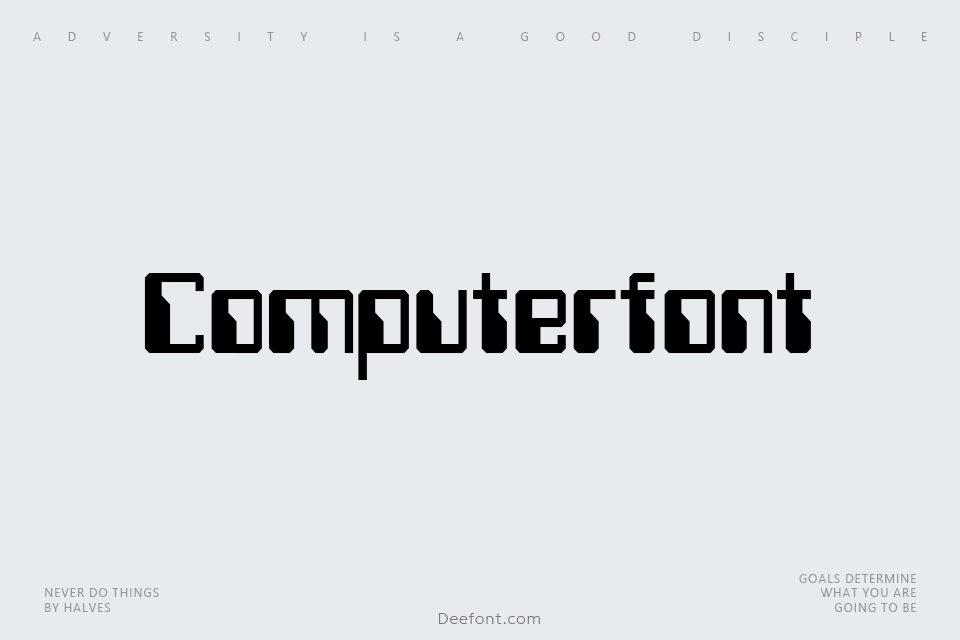
Computerfont Font
Computerfont is a distinctive techno and LCD-style display typeface with a clean, digital aesthetic designed for modern creative projects. This geometric font features a futuristic appearance with consistent stroke widths and minimalist design principles, making it ideal for tech-oriented branding, digital interfaces, and eye-catching headlines. With its 194 carefully crafted characters and crisp letterforms, Computerfont delivers exceptional legibility while maintaining contemporary appeal.